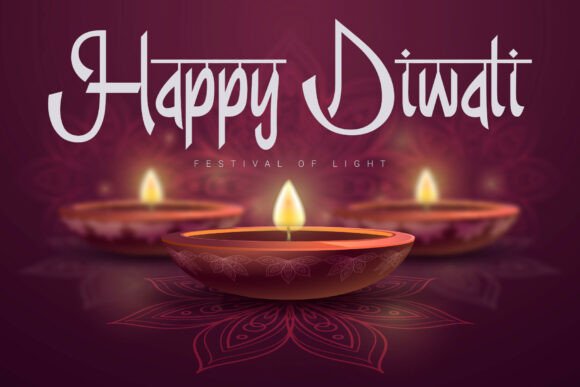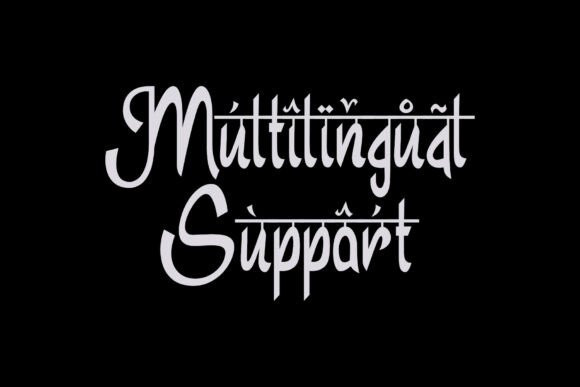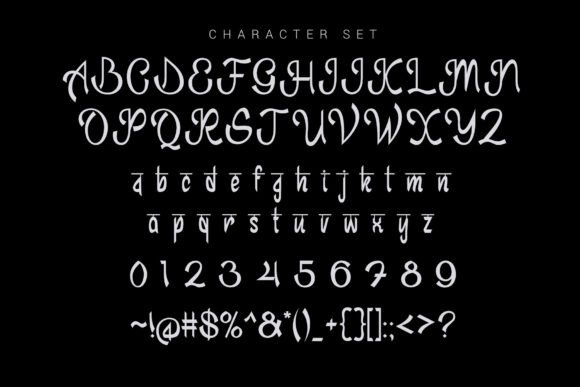
Introduction to Sabiren Font Font
Fonts play a crucial role in design, and the Sabiren Font font is a typeface that brings both character and versatility to any project. Whether you’re working on a branding project, a website, or a print design, the Sabiren Font font offers a unique style that can elevate your work.
Sabiren – Hindi Display Font Sabiren is a Hindi display font designed to bring beauty, cultural character, and expressive style to your typography.
Featuring distinctive Devanagari-inspired letterforms, smooth curves, and balanced shapes, Sabiren creates a visually appealing and artistic typographic presence .
Key Features of Sabiren Font Font
Why Choose Sabiren Font Font?
The Sabiren Font font is more than just a typeface – it’s a design tool that helps you communicate your message with style and clarity. Its unique character set and versatile design make it suitable for a wide range of applications, from elegant invitations to bold headlines.
With its carefully crafted letterforms and balanced proportions, the Sabiren Font font ensures readability and visual appeal across all mediums.
What makes Sabiren Font font special?
The Sabiren Font font stands out with its unique design, exceptional readability, and versatility across various design applications.